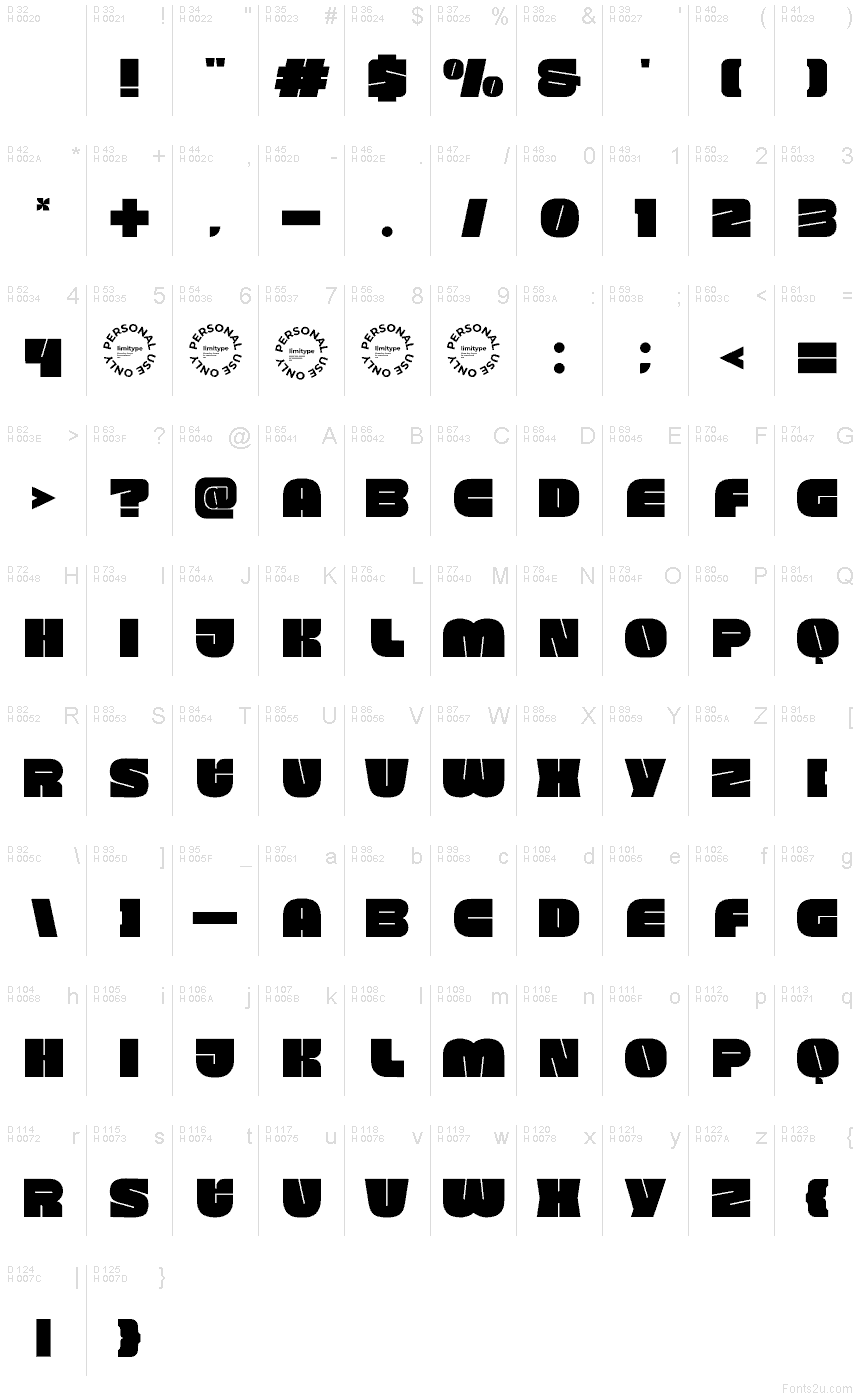
Yourbold Demo
Yourbold font is a groovy display font from Limitype. The bold letters instantly attract with their presence which can never be missed. Geometric shapes that give it the robust structure are one of this free display’s most appealing sections. Angular edges are set all around to include those on the outside part and the internal corners.
Use Yourbold for modern and contemporary applications like branding and headlines where it can best shine. Further include it in adverts, logos, signage, billboards, posters, magazines, covers, or any project of choice.